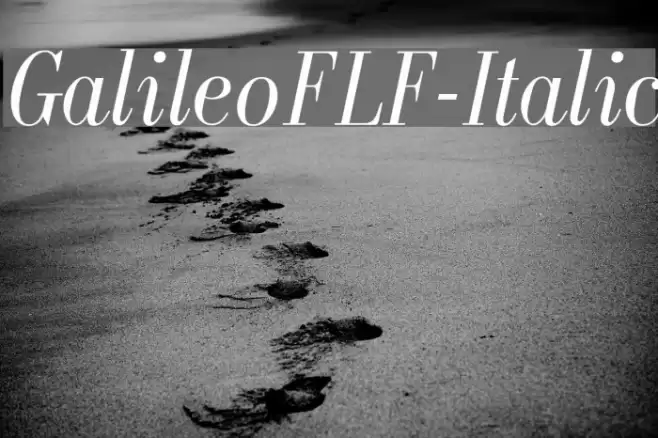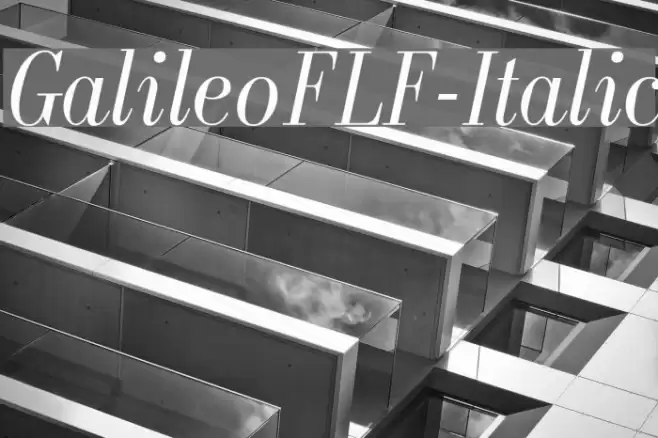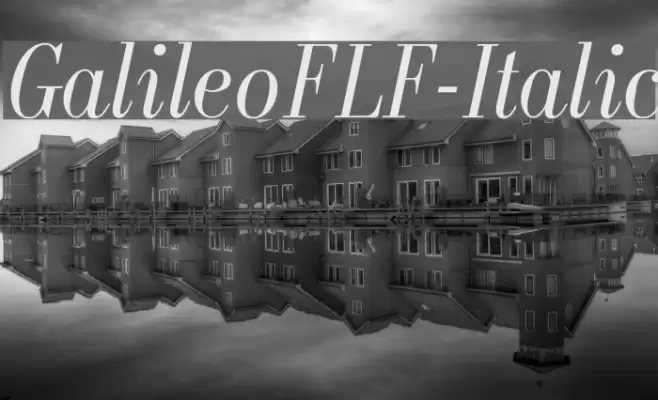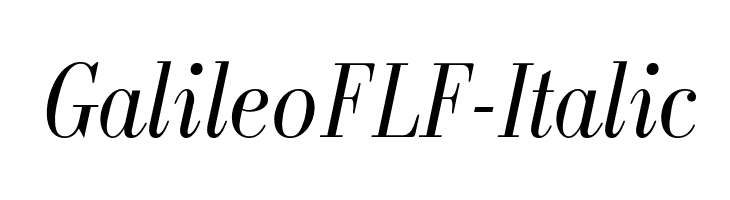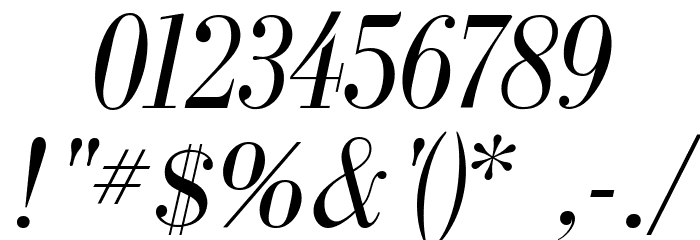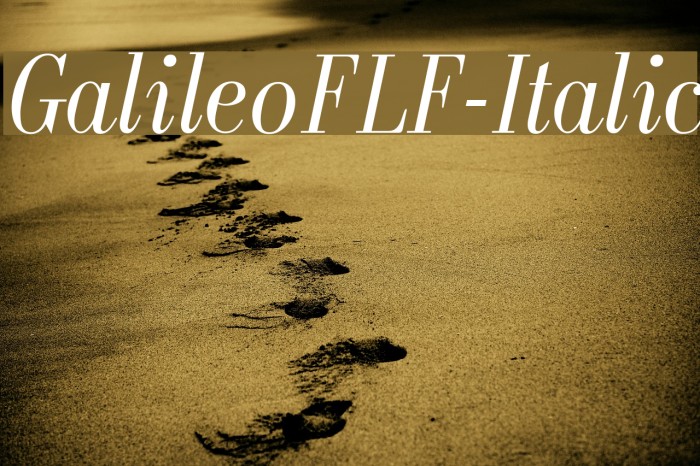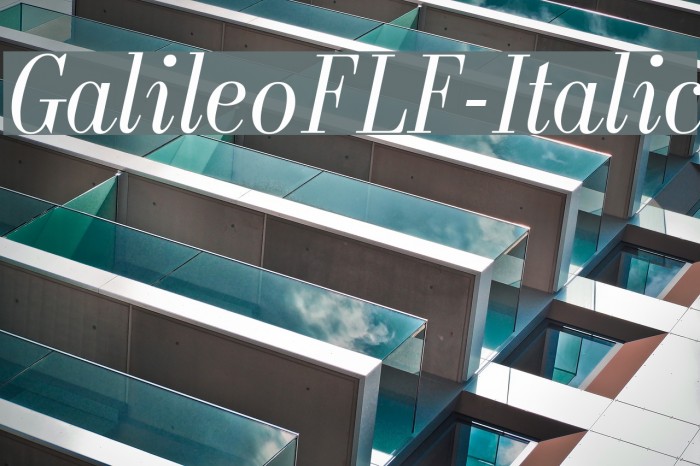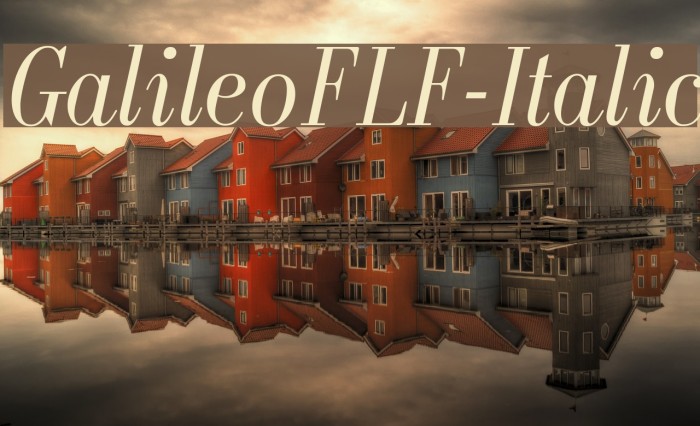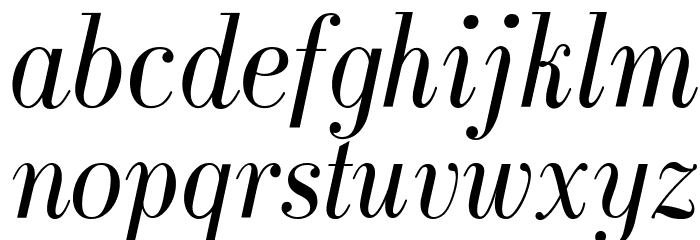
GalileoFLF-Italic Font
GalileoFLF-Italic Description
This elegant serif font features a classic italic style, characterized by its smooth, flowing lines and subtle slant. The uppercase letters exhibit a refined and sophisticated appearance, while the lowercase letters maintain a graceful continuity. The numerals are well-proportioned, complementing the overall aesthetic. Special characters are designed with the same attention to detail, ensuring consistency across all glyphs. The font's high contrast between thick and thin strokes adds to its timeless appeal, making it suitable for a variety of formal and creative applications.
An elegant serif font with a classic italic style and high contrast strokes from Uncategorized fonts.
- Proposed Projects: Ideal for use in formal invitations, elegant branding, editorial design, and high-end product packaging.
- Overall Style: Classic
- Use Case: Headlines, Editorial design, Formal invitations